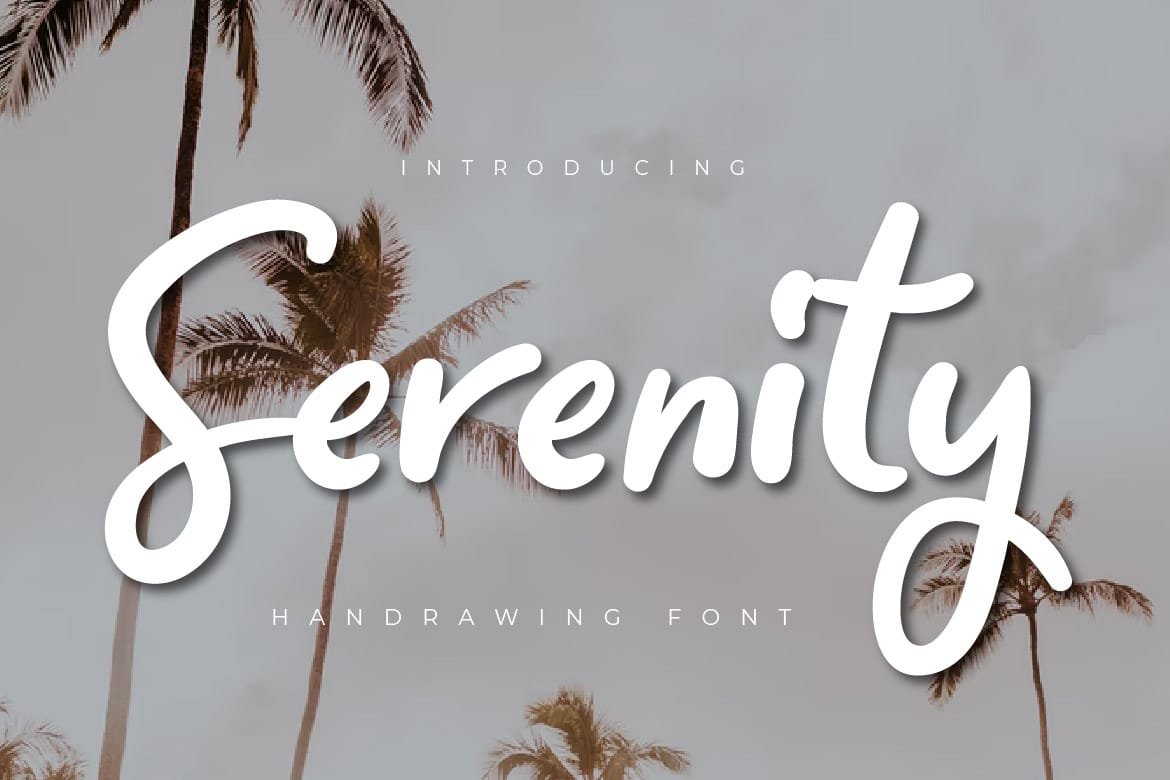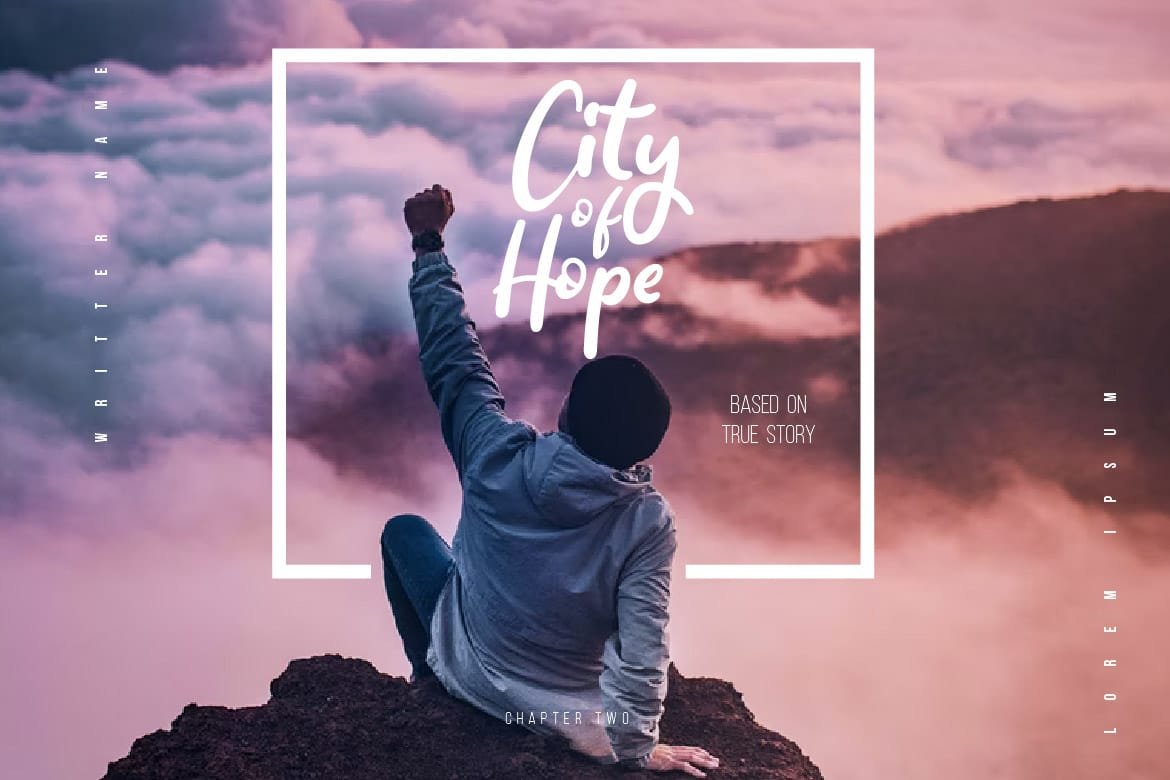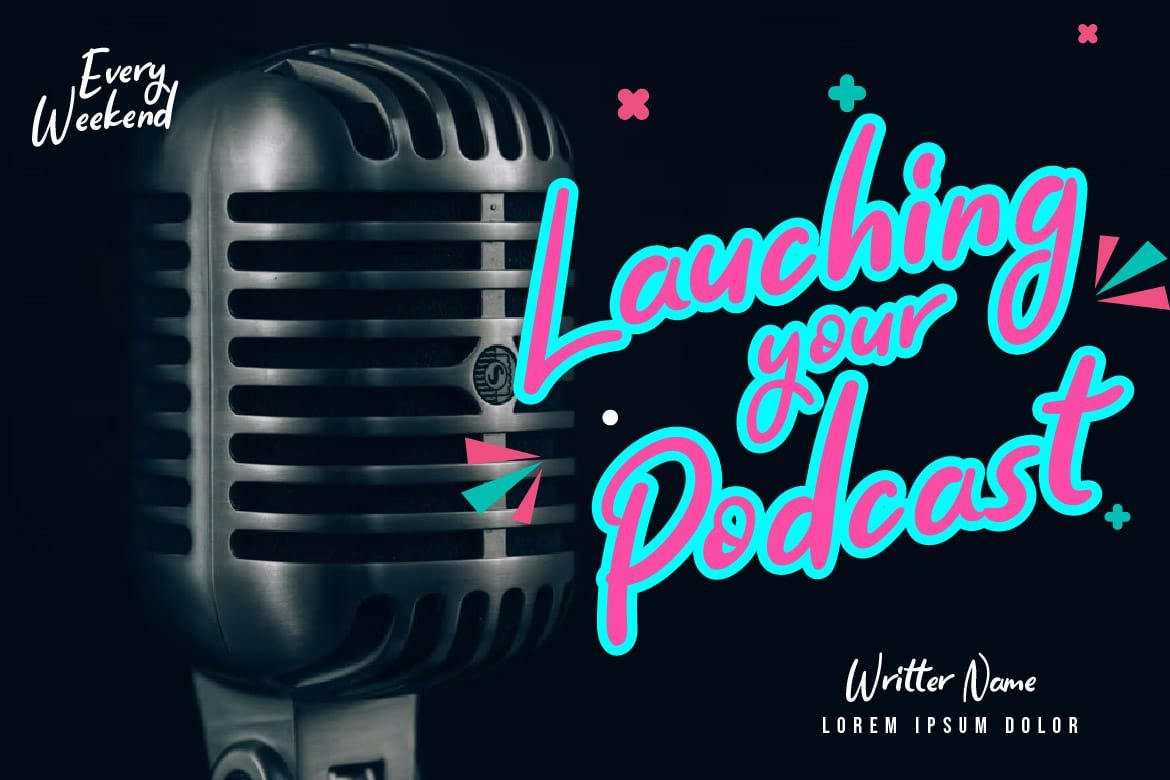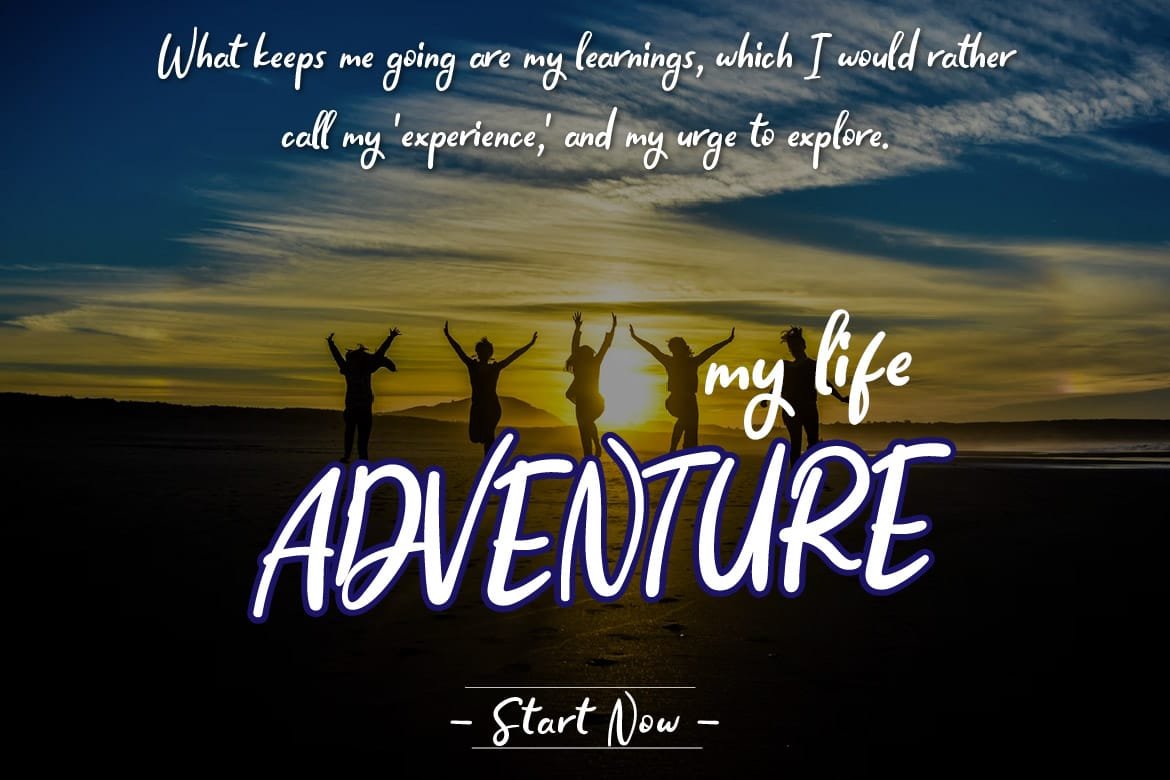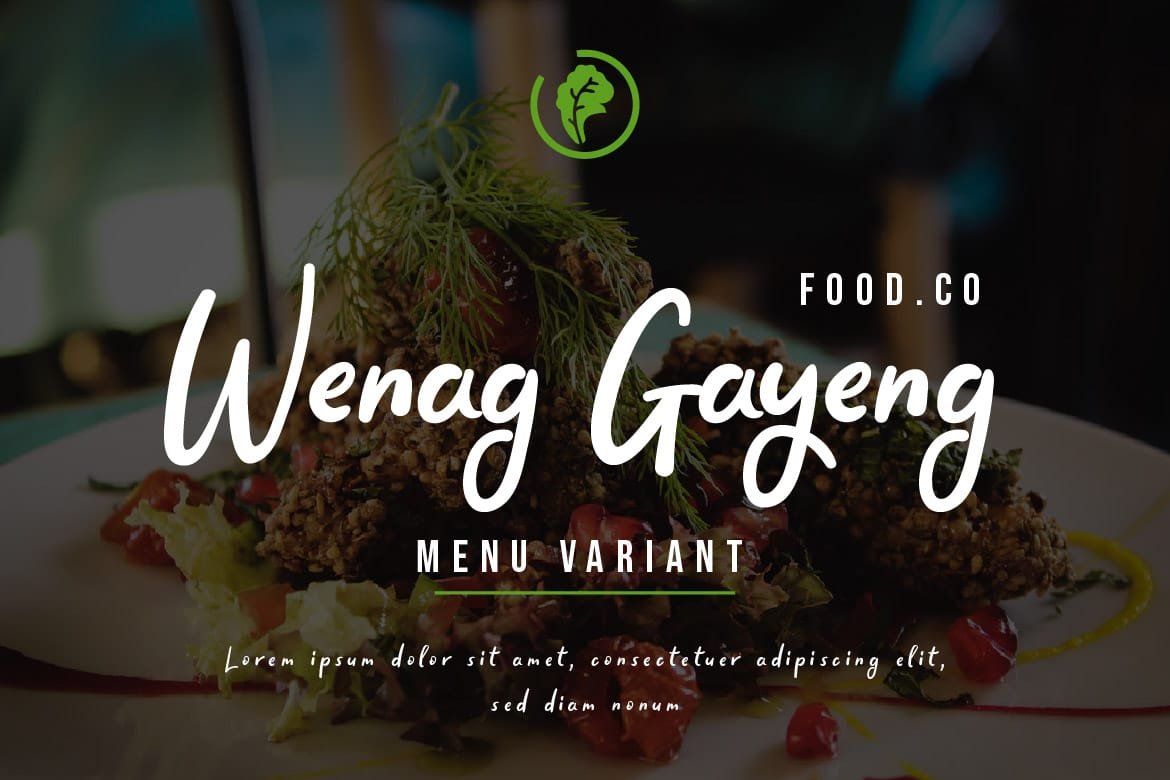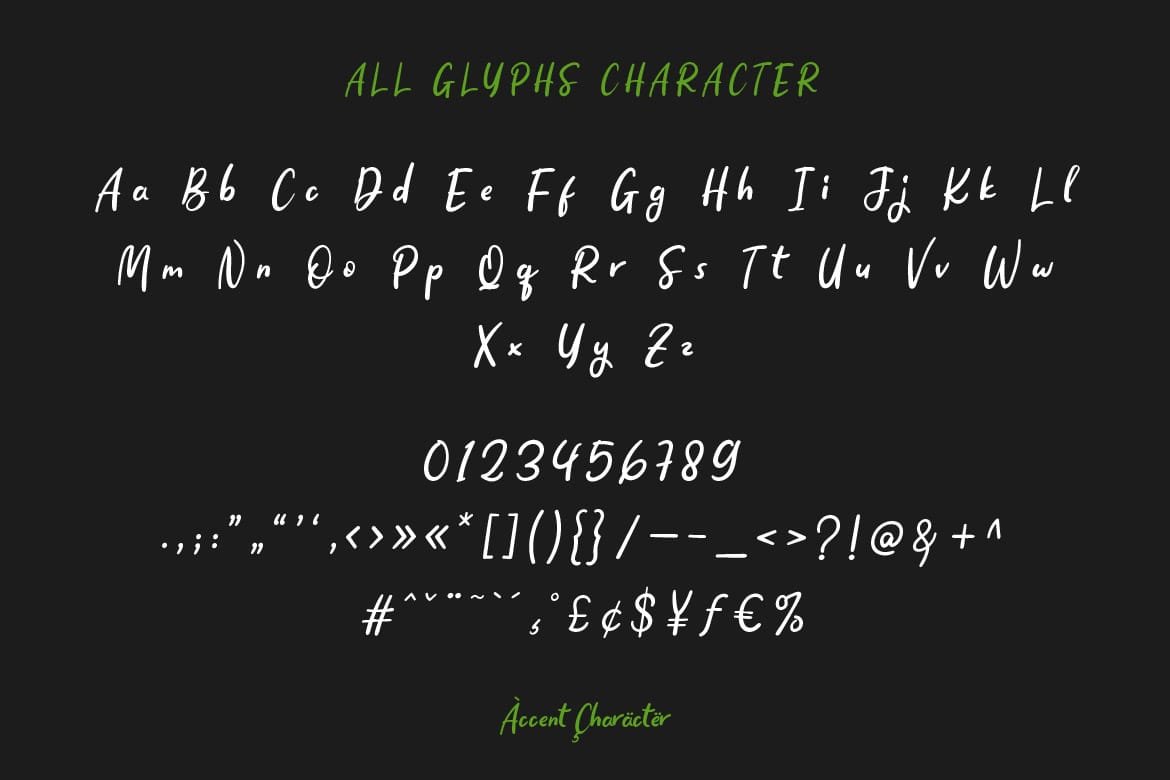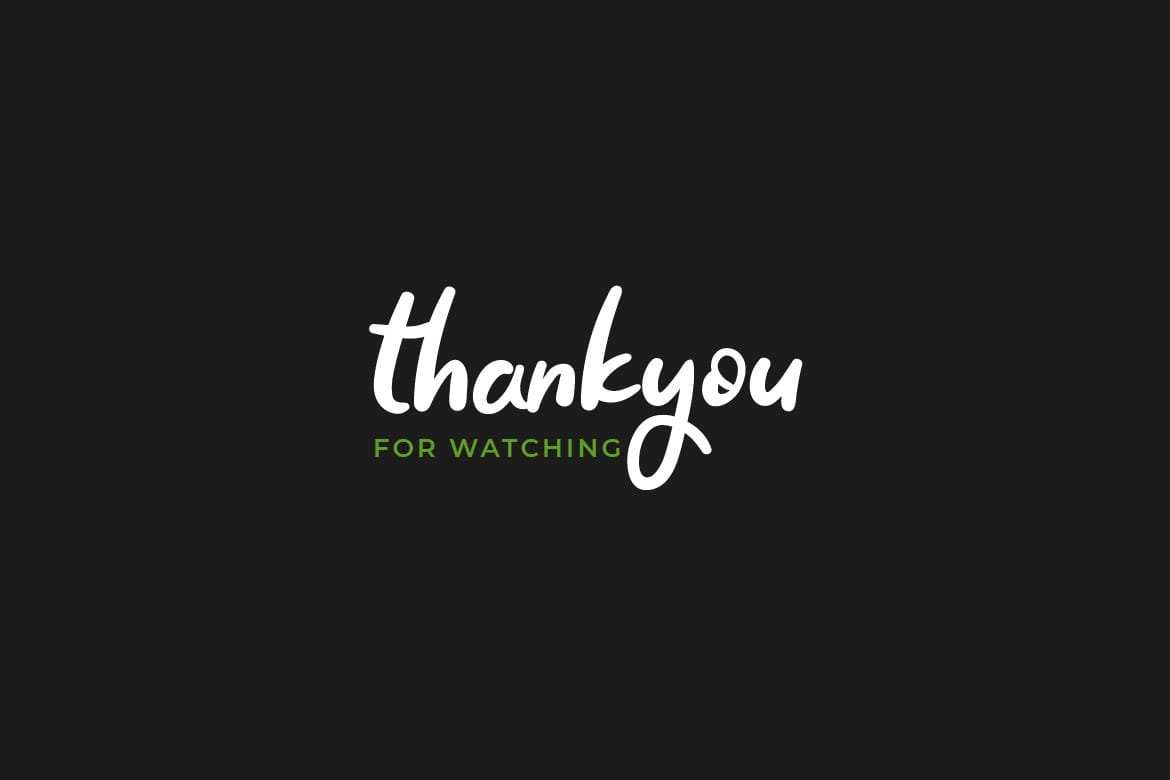
Serenity is a calming and elegant handwritten font. With gentle touches and balanced proportions, this font brings a sense of peace and sophistication to every design project. Suitable for titles, quotes, or packaging designs looking for a simple yet captivating look.